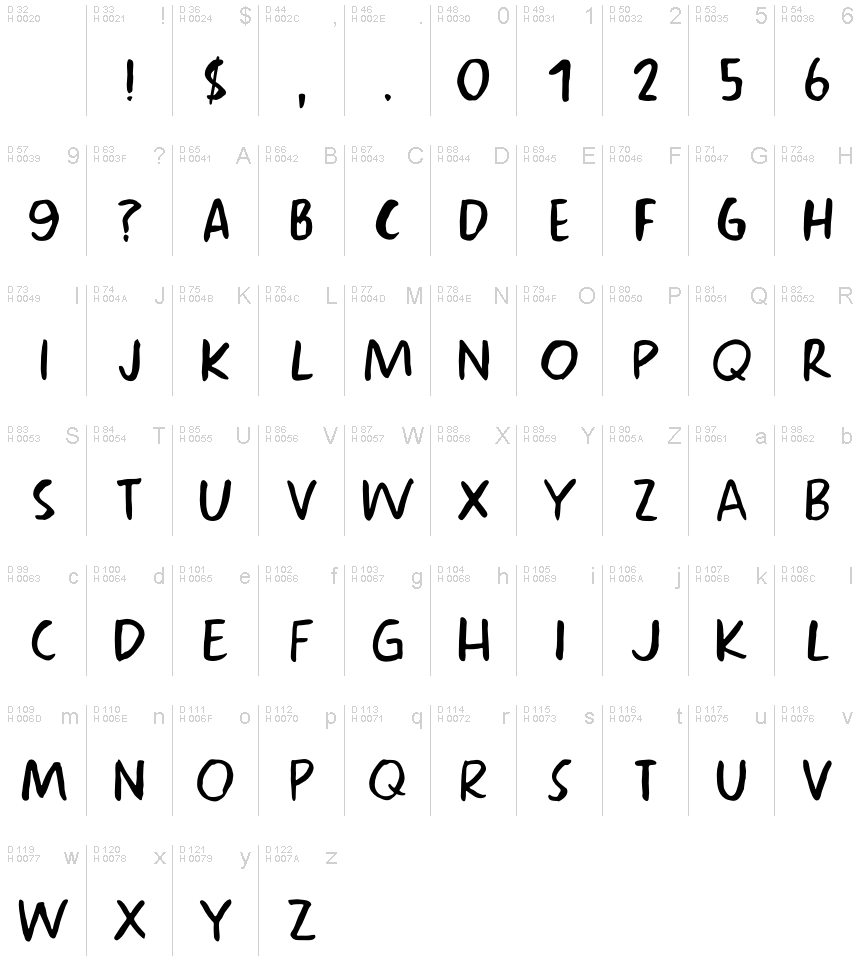
Safety Switch, crafted by David Kerkhoff of Kitchen Table Type Foundry, exudes a lively energy with its artistic brush style. This font features bold, expressive strokes that convey a sense of spontaneity and creative flair. The playful curves and dynamic lines give it an easygoing yet impactful presence, making it unforgettable in any display.
Visually striking, Safety Switch finds its place in a variety of design contexts – from vibrant posters to engaging branding materials. Its unique character truly shines on event flyers or packaging aimed at capturing attention and evoking enthusiasm. Whether used for headlines or inviting logos, this font effortlessly adds charm and personality to any project, ensuring your message is communicated with both clarity and style.